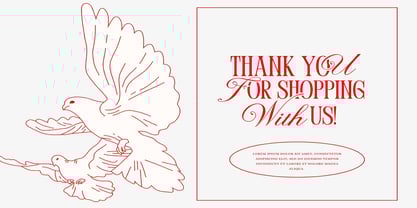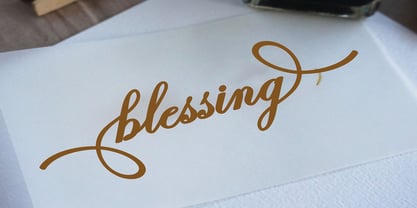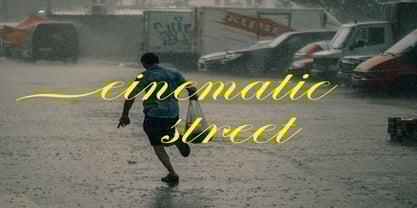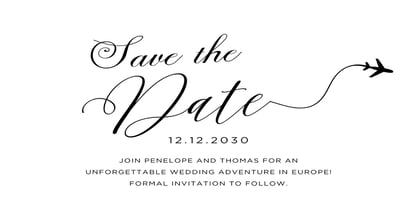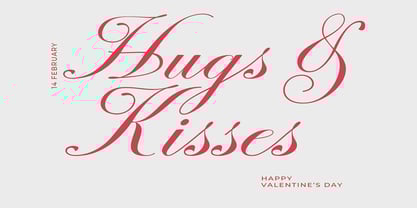
Somantic
by Dream Font
The Somantic Font Family was designed by Mark Jamra and published by Dream Font. Somantic contains 1 styles. More about this family
Somantic script is a modern calligraphy design including Regular. This font is casual and beautiful with swashes. Can be used for various purposes such as logos, product packaging, wedding invitations, branding, headlines, signage, labels, signatures, book covers, posters, quotes, and much more.